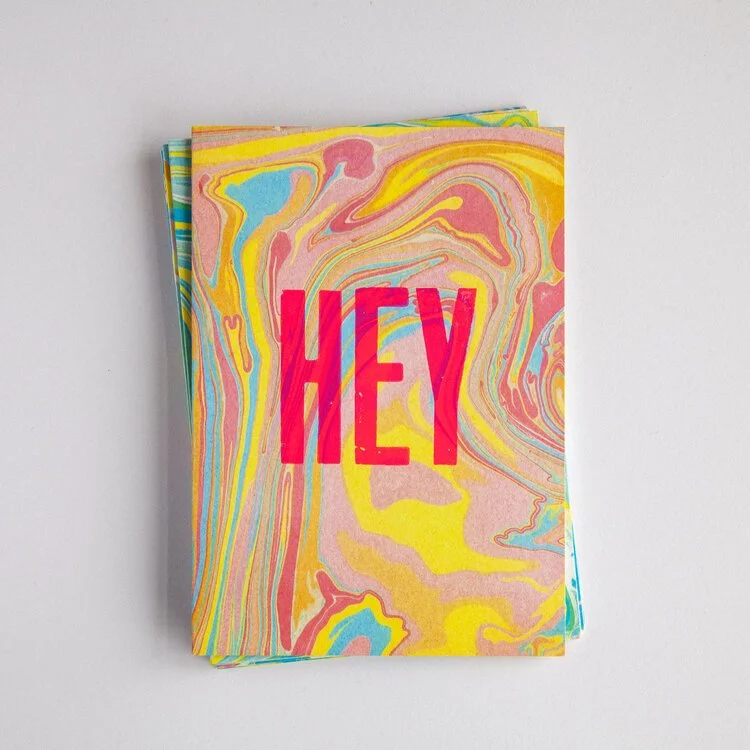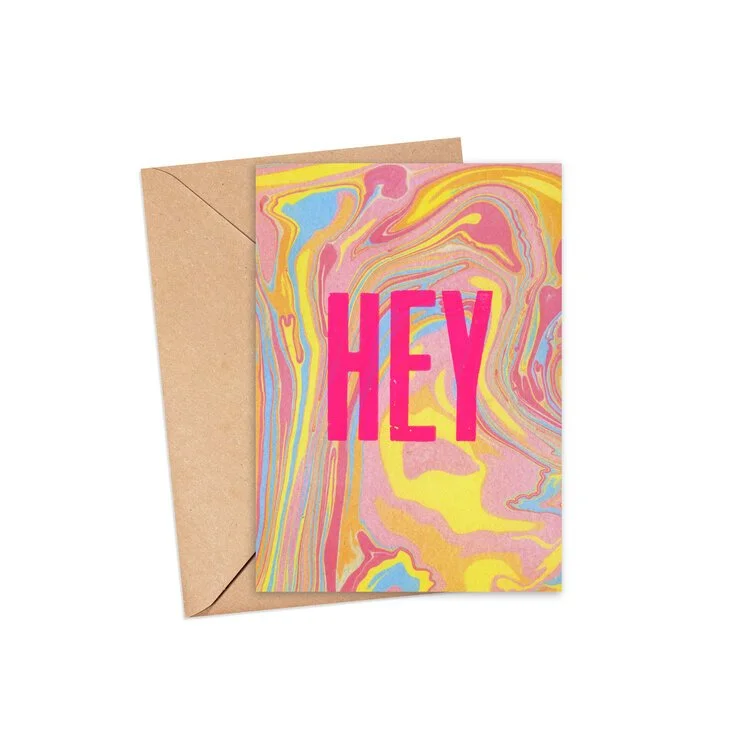
Image 1 of 2 Image 2 of 2 Marbled HEY - letterpress card £2.95 Vibrant marbled background with a letterpress printed abbreviation.A6 - Blank inside - Kraft envelope Add To Cart Added! Vibrant marbled background with a letterpress printed abbreviation.A6 - Blank inside - Kraft envelope